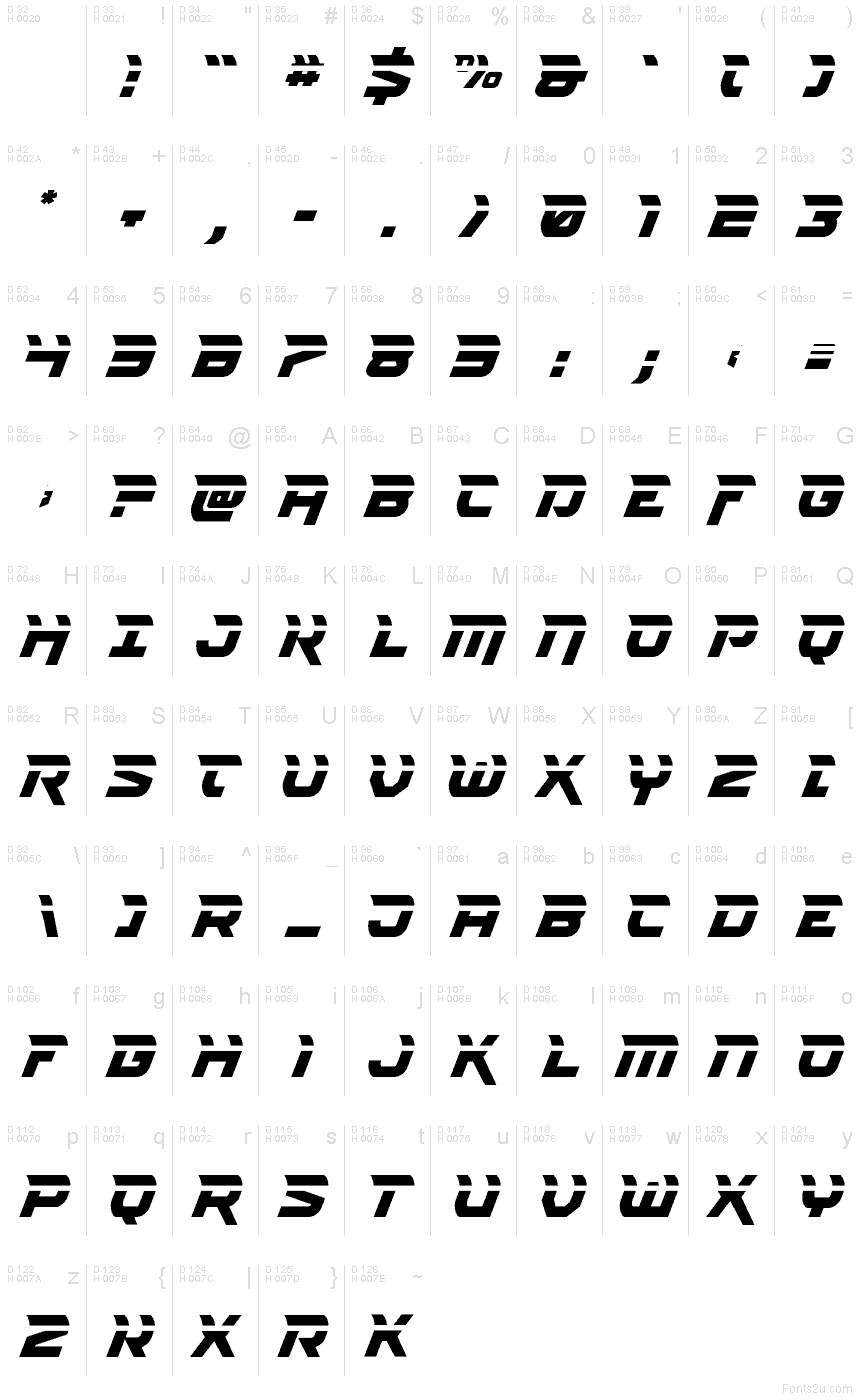
Renegent Laser
Renegent Laser font by Iconian Fonts is a futuristic and modern aesthetic typeface, expanded horizontally for an engaging display. The font has angular and geometric structure that creates a dynamic and energetic sense in every character. Renegent Laser is italicized which increases enormously its visual impact, especially when used in particular projects.
This free display typeface fits perfectly in posters, branding projects, packaging design, games design or titles and magazines covers. Companies’ business cards or resumes are also other succesful ways of using Renegant Laser professionally. Website headers where short amounts of text are written benefit from this font too.